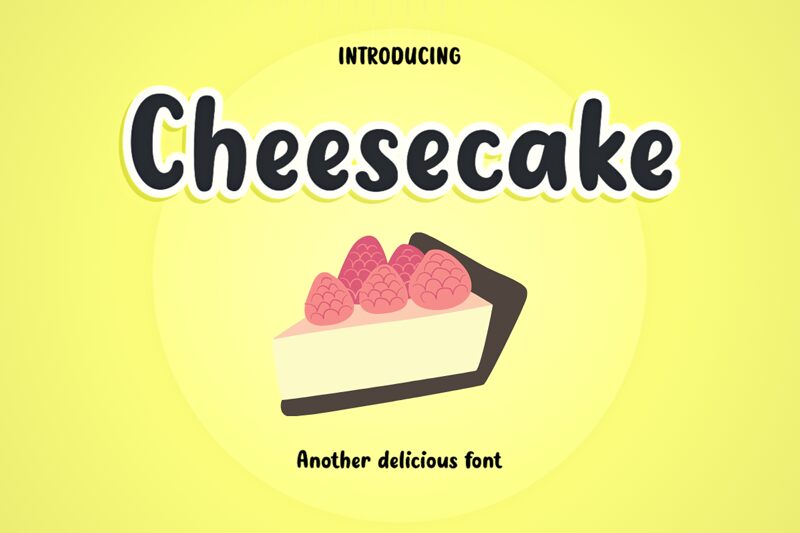
Cheesecake
Cheesecake, the bold and playful display font by Kurnia Setyadi, is a delightful choice for a range of projects. With its comic-inspired style, this font adds a touch of whimsy to children's books, graphic novels, and cartoons. Its bold weight ensures clear legibility even at smaller sizes, making it perfect for headlines on websites and social media graphics. Whether you're creating eye-catching posters or designing packaging for fun products, Cheesecake brings a dynamic charm that will captivate your audience. Let your imagination run wild with this lively typeface!